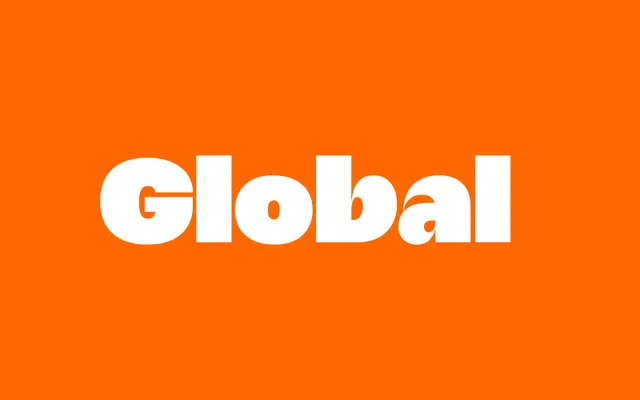
Yalla
The Designers Foundry · Mateusz Machalski
A single-weight geometric display face by Mateusz Machalski, shaped by the strong Arabic headline typography and calligraphic contrasts encountered in Cairo.
Designed after Machalski's trip to Cairo, Yalla draws on the geometric forms and calligraphic details characteristic of Arabic headline type, translating those contrasts into a Latin display face. With only a Bold weight and 353 glyphs, it is a deliberately narrow tool suited to headlines, posters and branding where a strong, singular voice is needed. Language support spans a broad range of Latin-based scripts including European, African and Southeast Asian languages.
A single-weight display typeface drawing on geometric Arabic headline letterforms, with strong angular geometry offset by calligraphic details; fits the display category given its expressive, single-style nature.